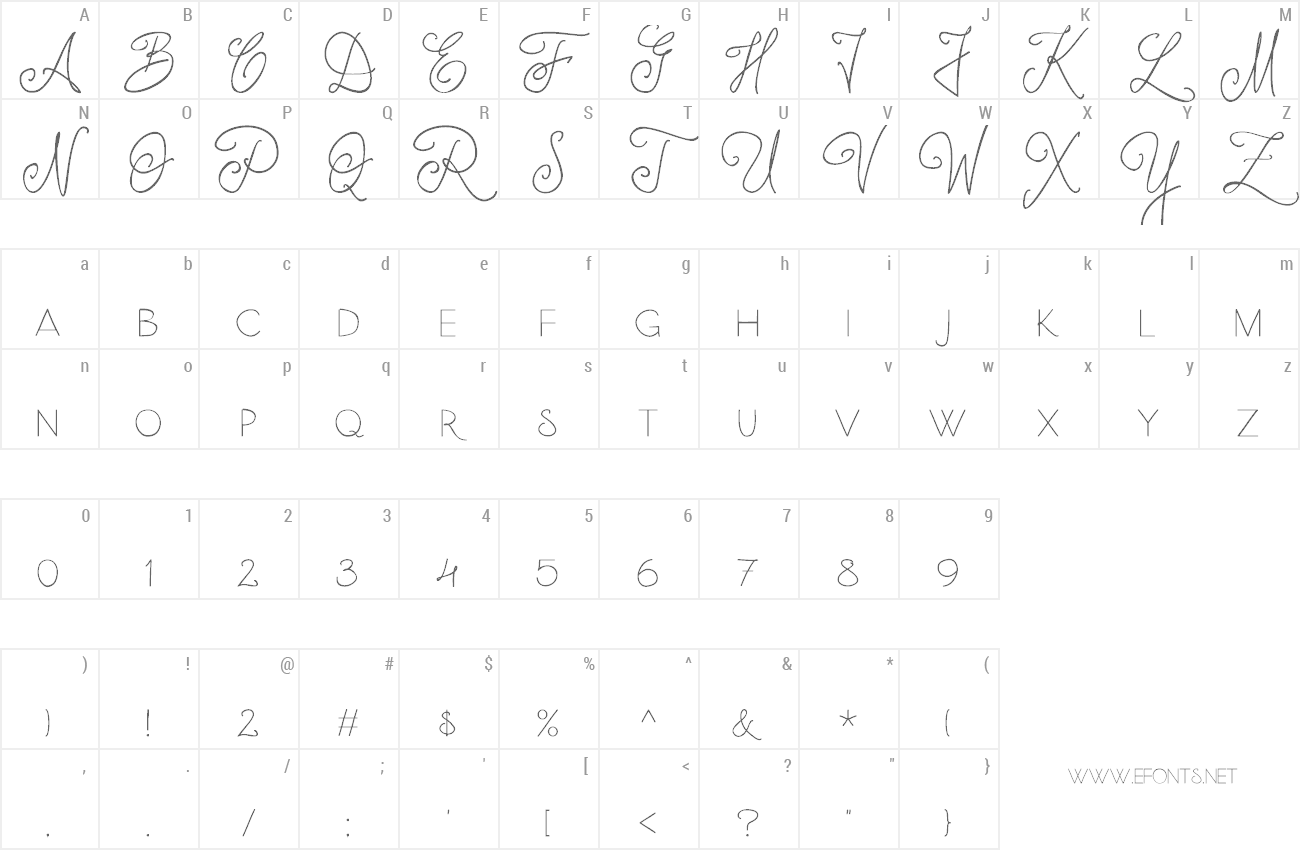
Preview and download Kwintus Halved Font. Created by Dan Marian Sabanovici in Script Various styles with Free for personal use license.
Kwintus Halved. A daring, two-faced, handwritten font that brings together elegant capital letters and small capitals with a retro feel as lowercase glyphs. The possibilities, unlimited. The choice, yours. It's FREE FOR PERSONAL USE, but if you want to use it in commercial purposes, please contact me at sabanovicid@yahoo.com |